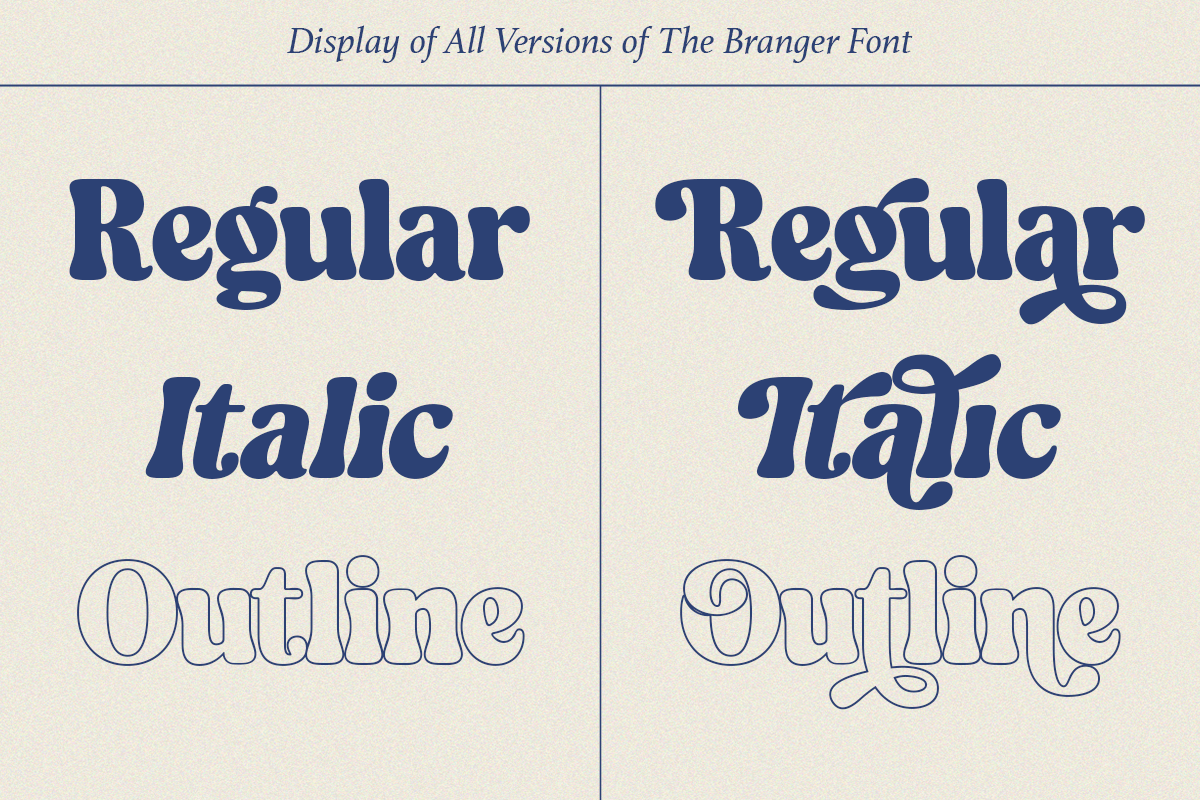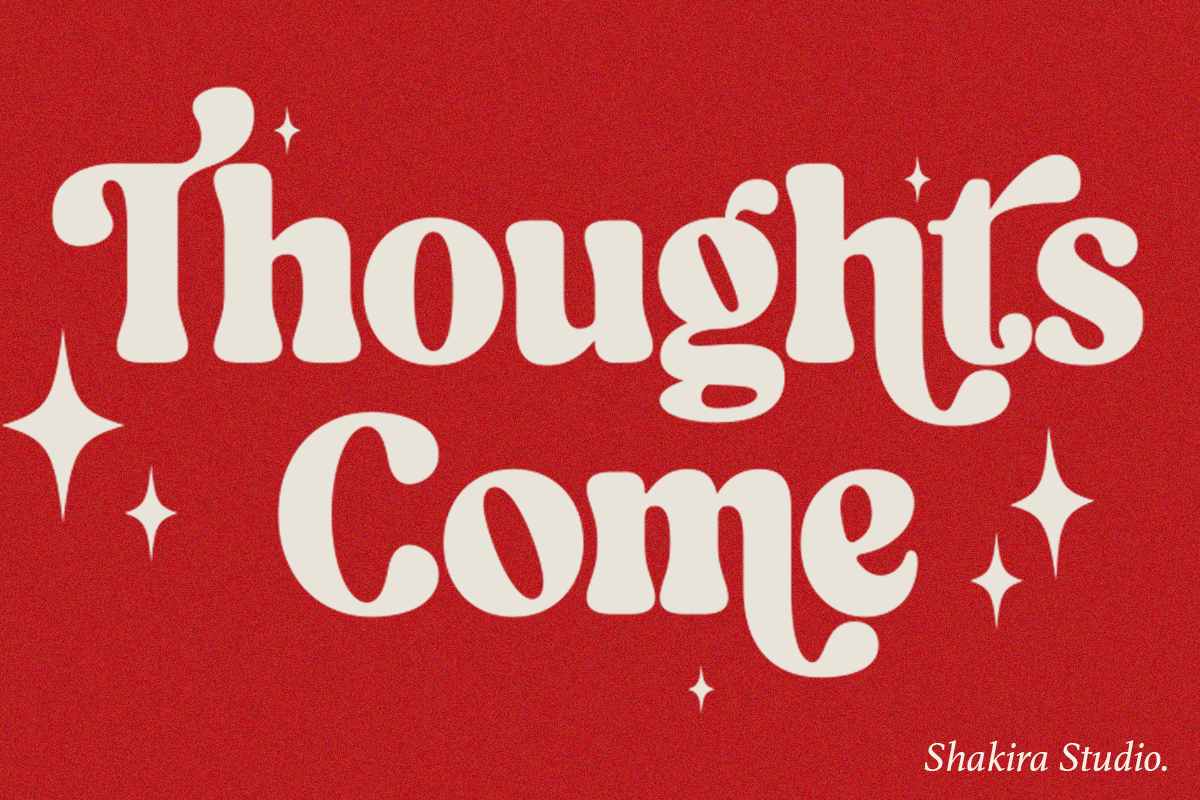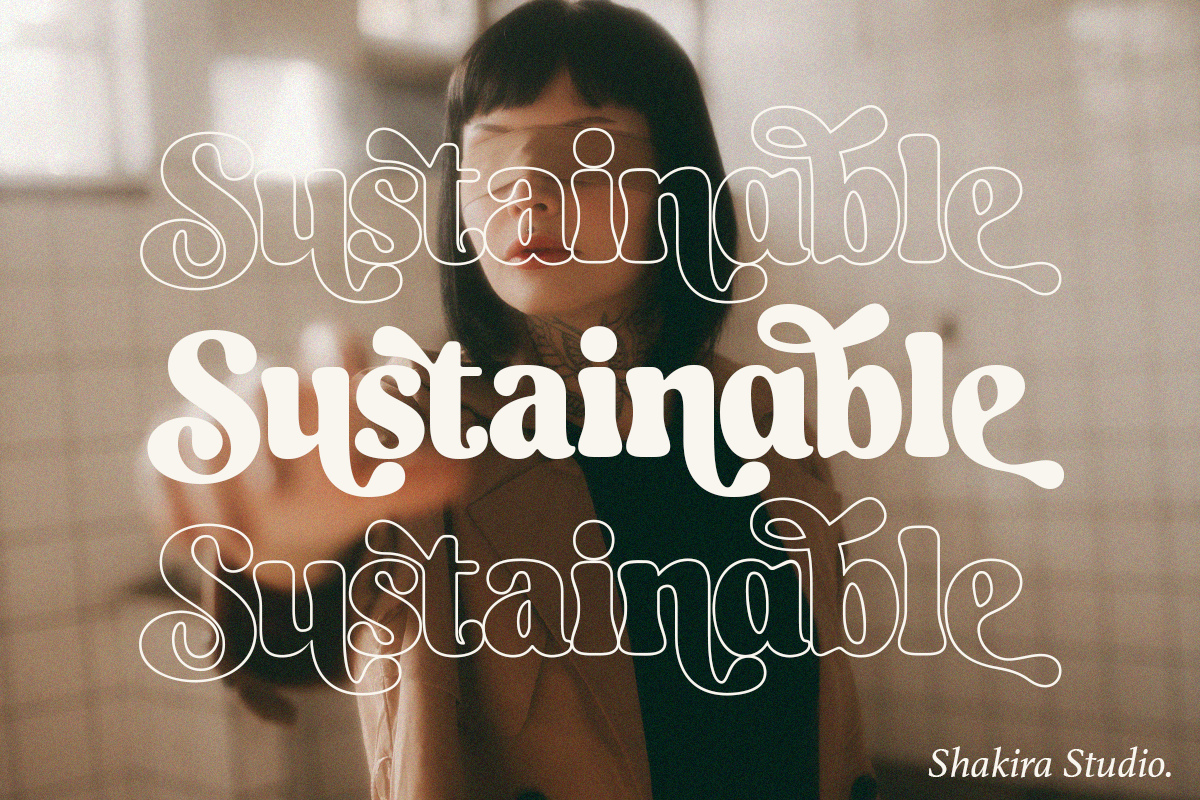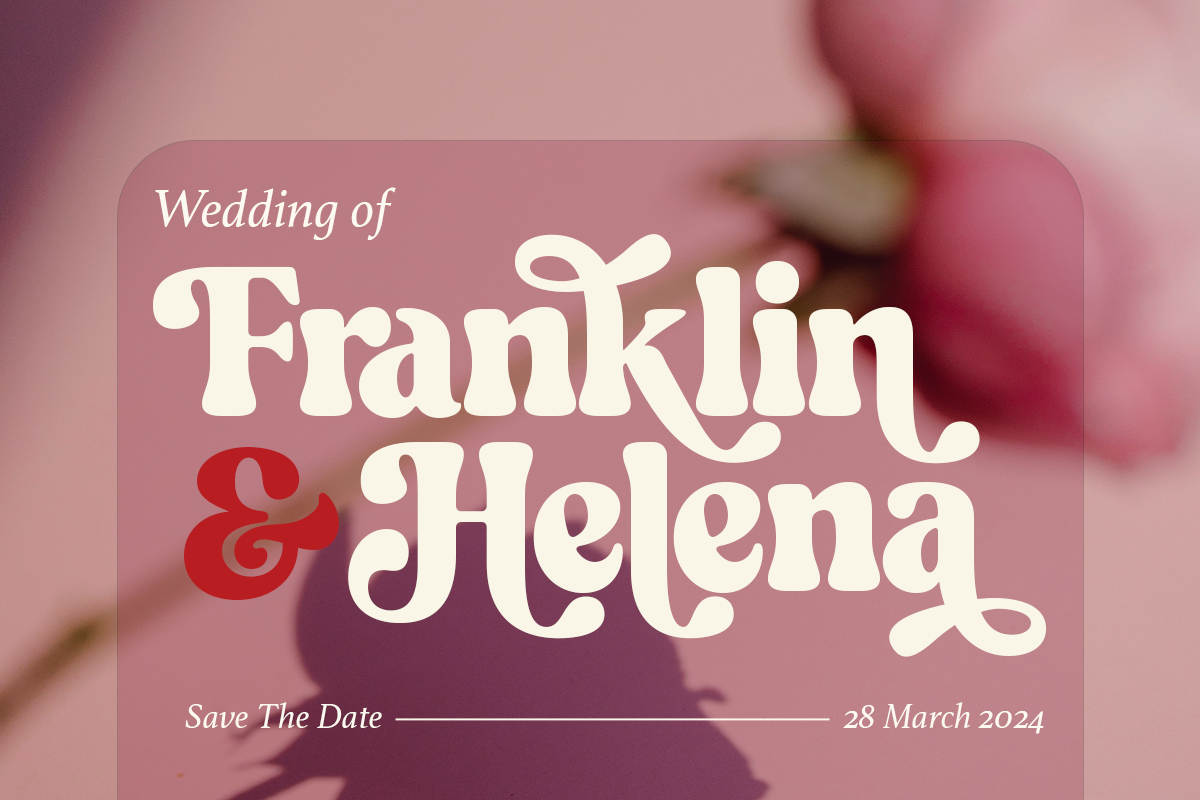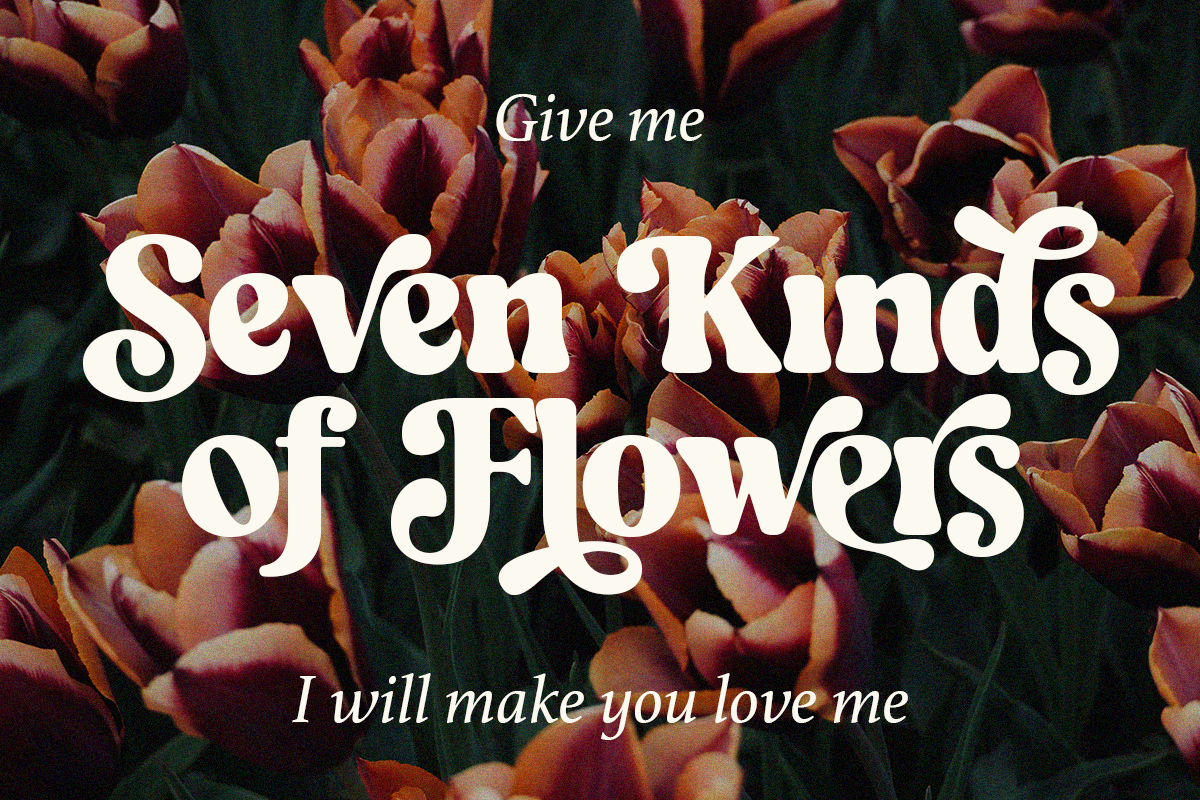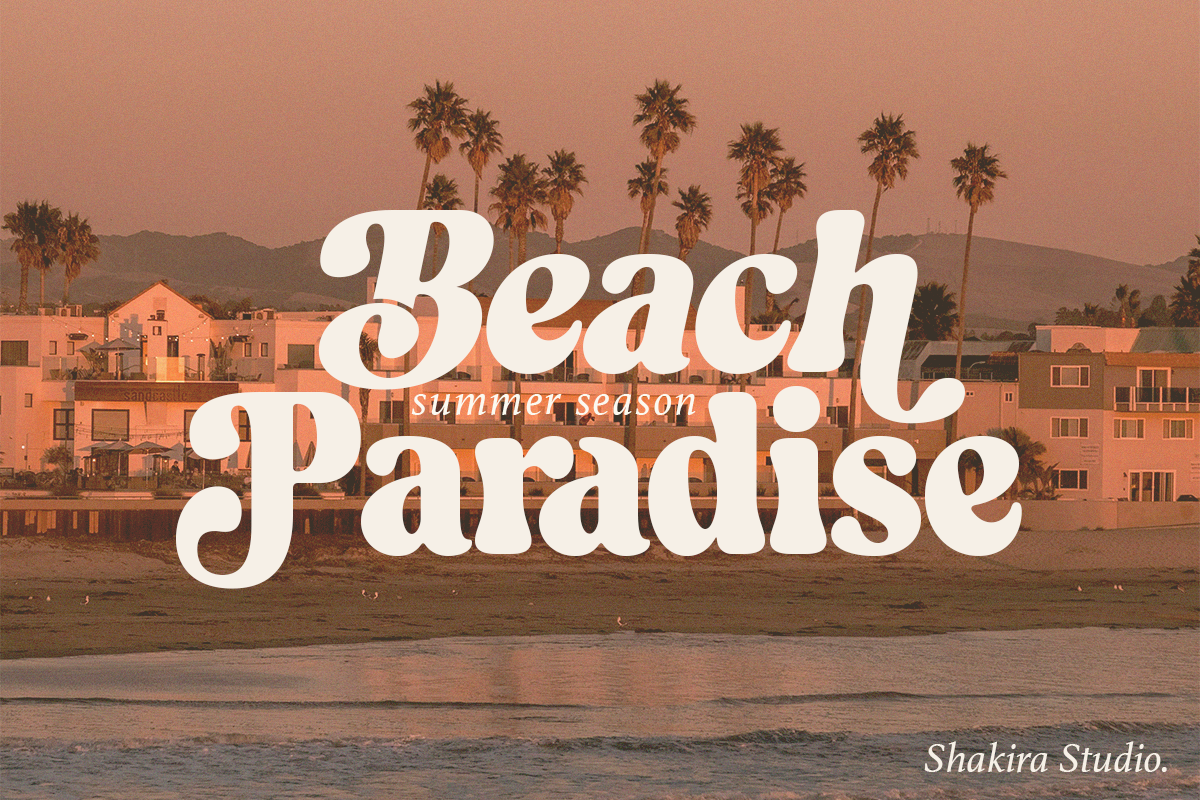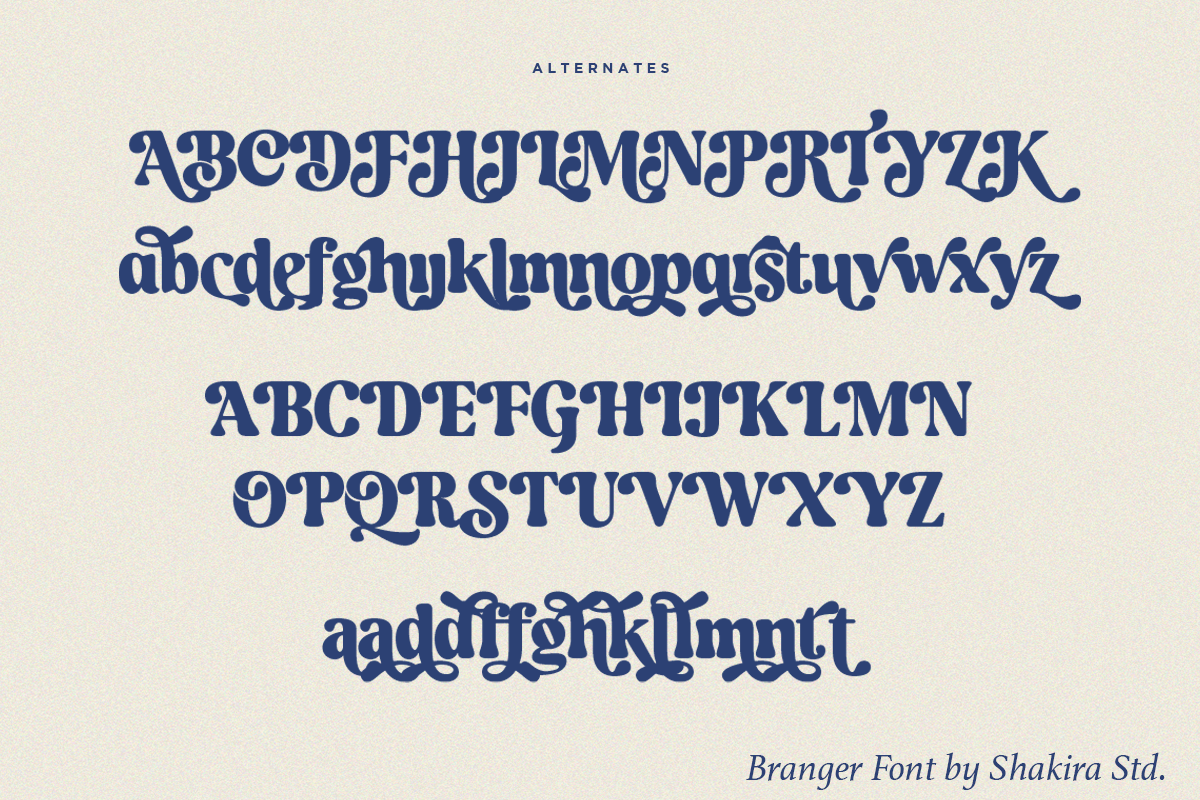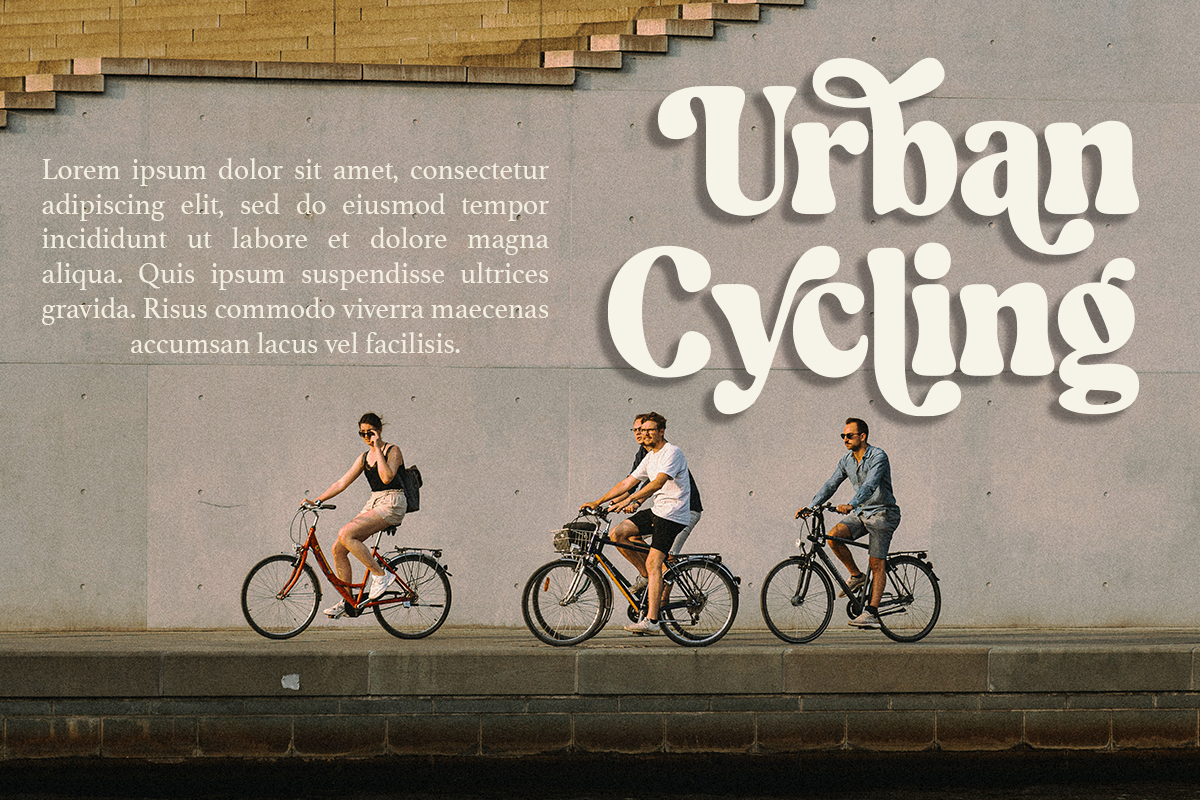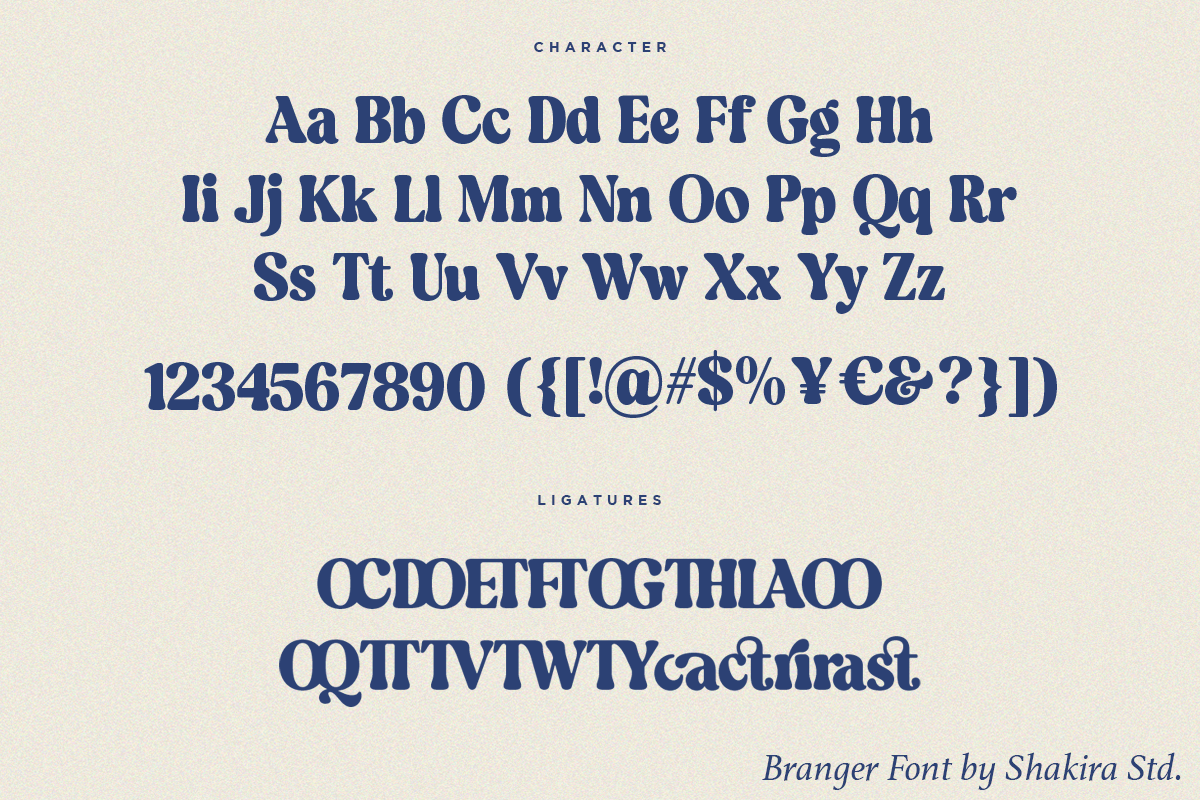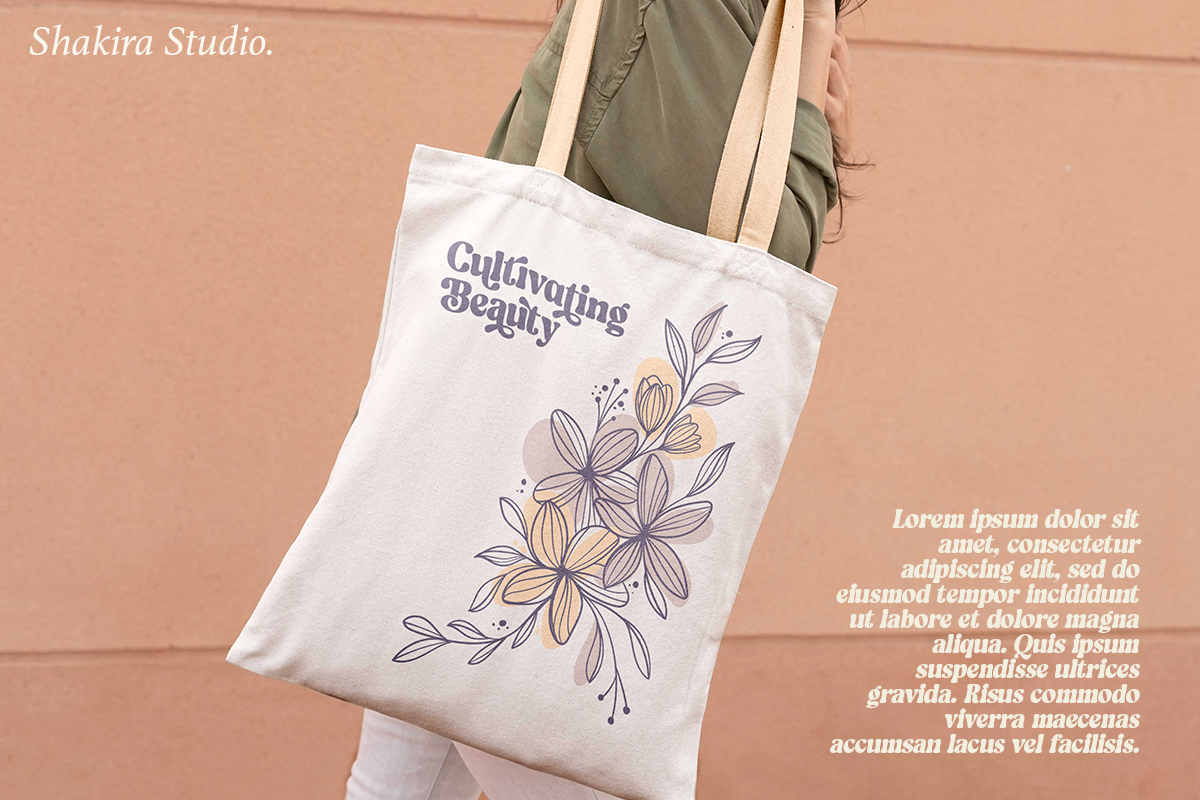
Branger - Modern Retro Serif
Introducing Branger - Bold Retro Serif Font with Three Stylish Variations!
Branger isn't just a serif font; it's a versatile toolkit for designers seeking to make a bold statement. With its bold retro serif characters and three stylish variations - regular, italic, and outline - Branger embodies the essence of #SerifFonts and #TypographyTrends.
Crafted for designers looking to add versatility to their projects, Branger offers endless possibilities for creativity. Whether you're designing logos, posters, or branding materials, the three variations provide flexibility and ensure your designs stand out.
Elevate your designs with Branger and join the trend towards bold retro serif fonts. Make a lasting impression with Branger's timeless charm and modern appeal in all three stylish variations! #BrangerFont #BoldSerif #DesignVersatility
- Regular, Italic & Outline
- All Multilingual symbol
- Opentype features ( ligature, alternate )
Multilingual character supports : (Afrikaans, Albanian, Catalan, Croatian, Czech, Danish, Dutch, English, Estonian, Finnish, French, German, Hungarian, Icelandic, Italian, Lithuanian, Maltese, Norwegian, Polish, Portuguese, Slovenian, Spanish, Swedish, Turkish, Zulu)